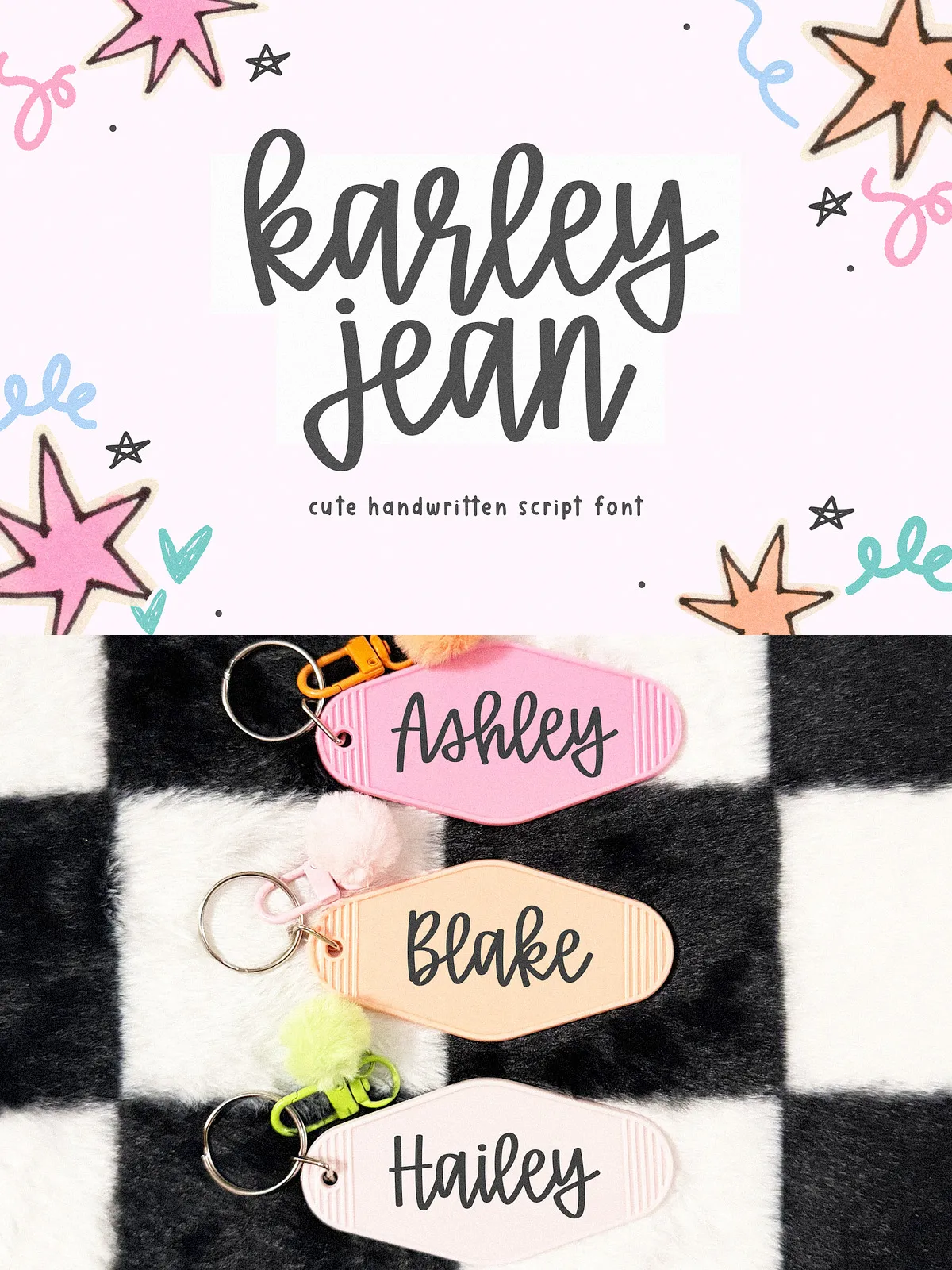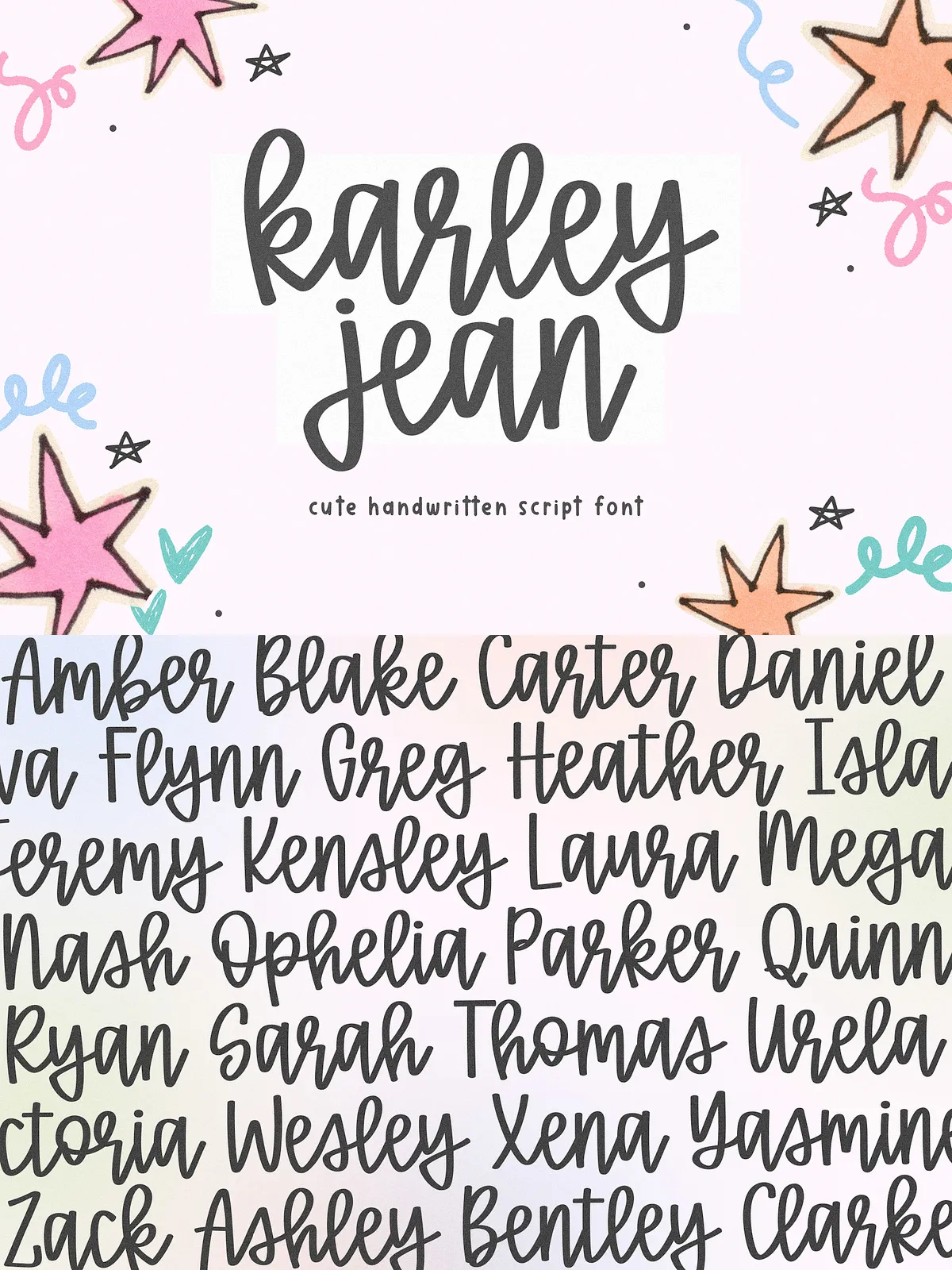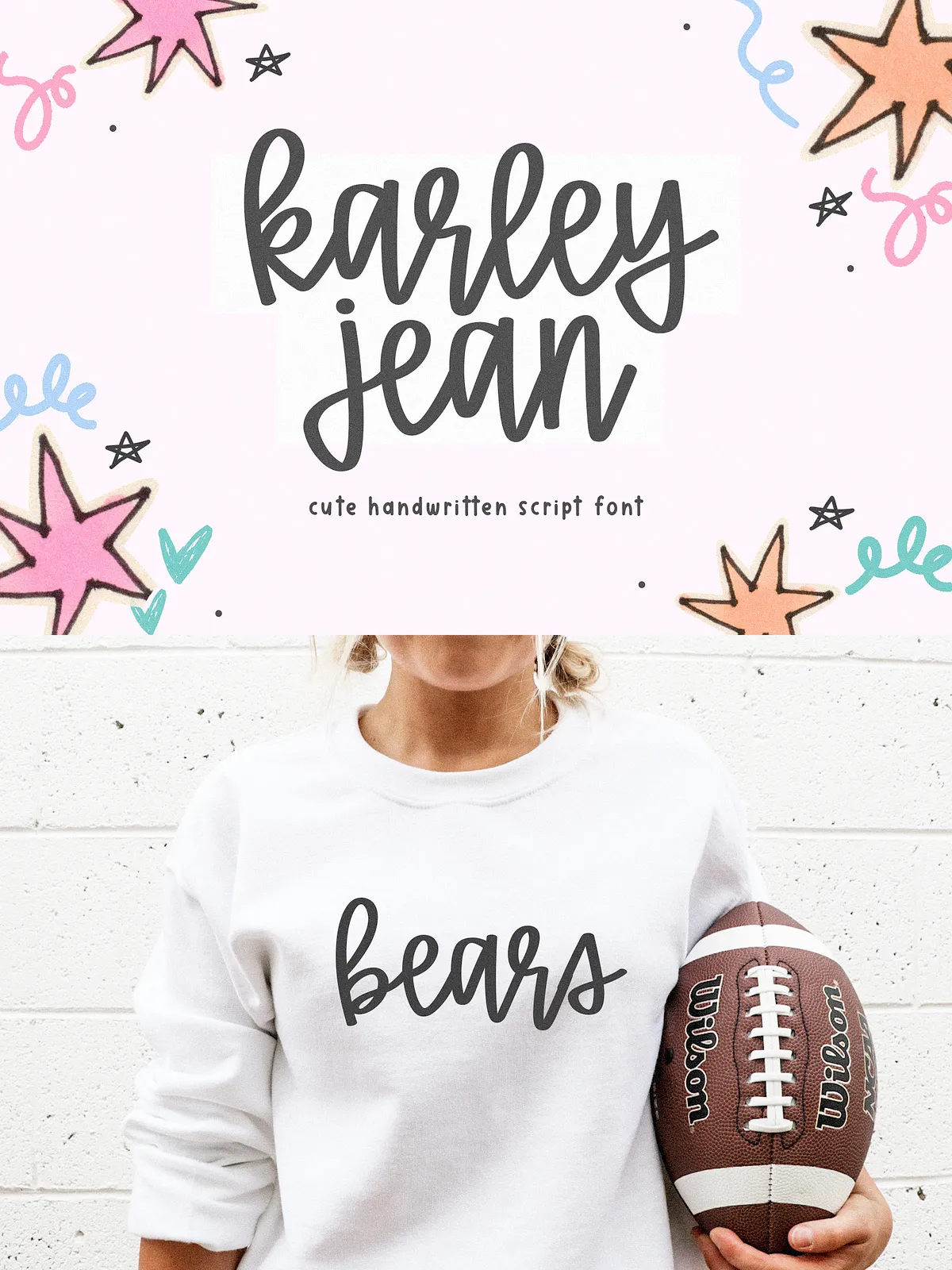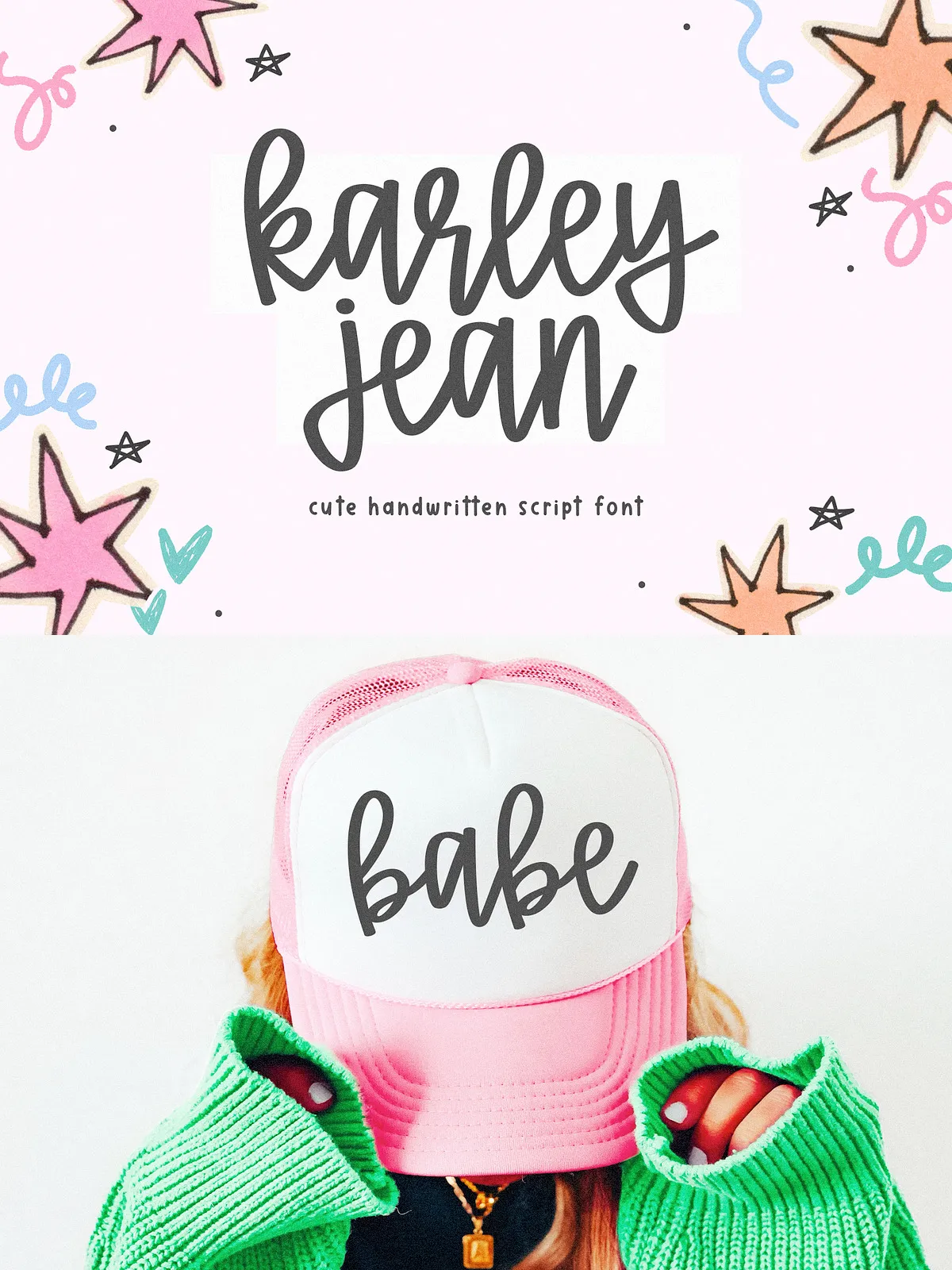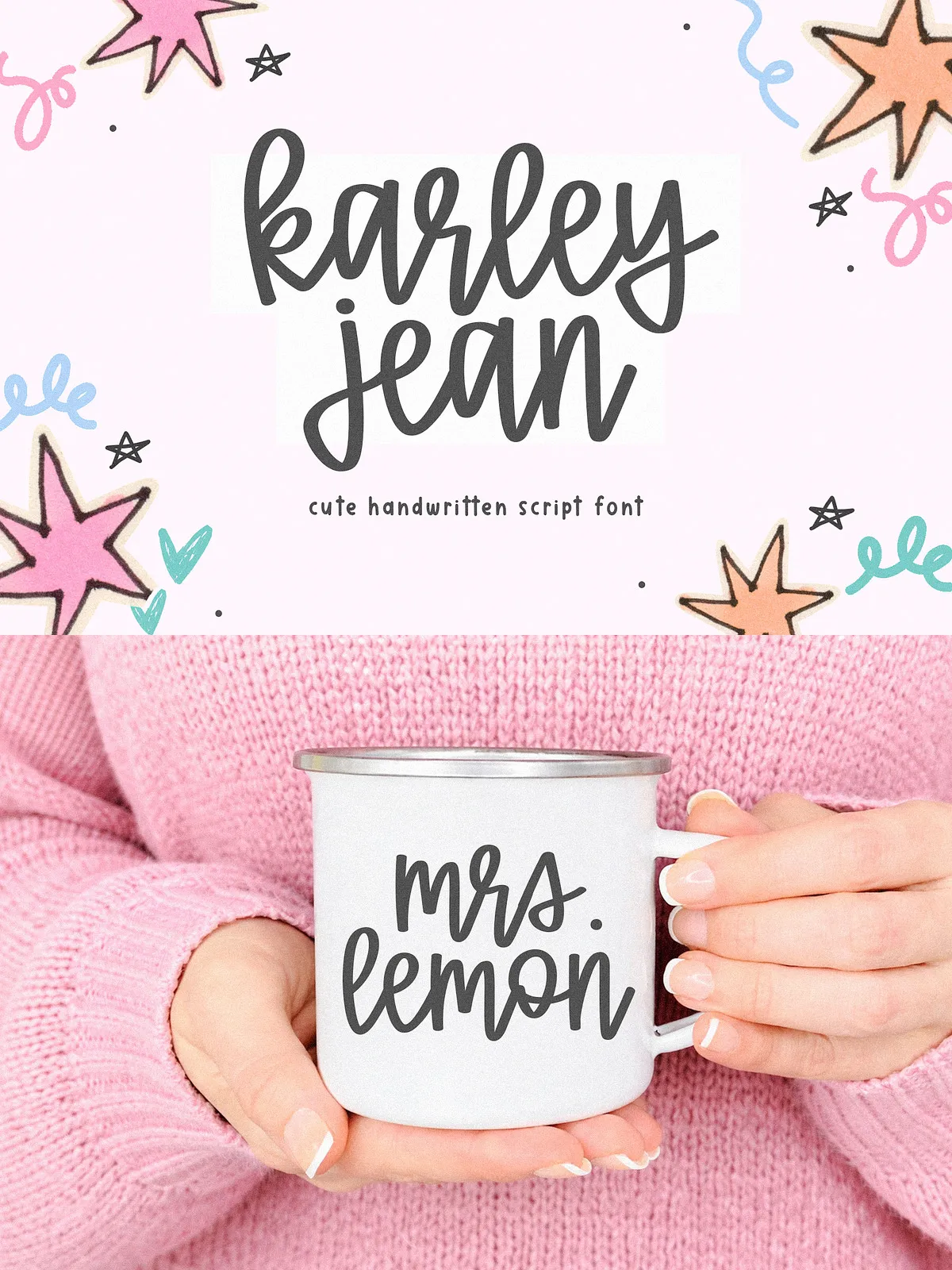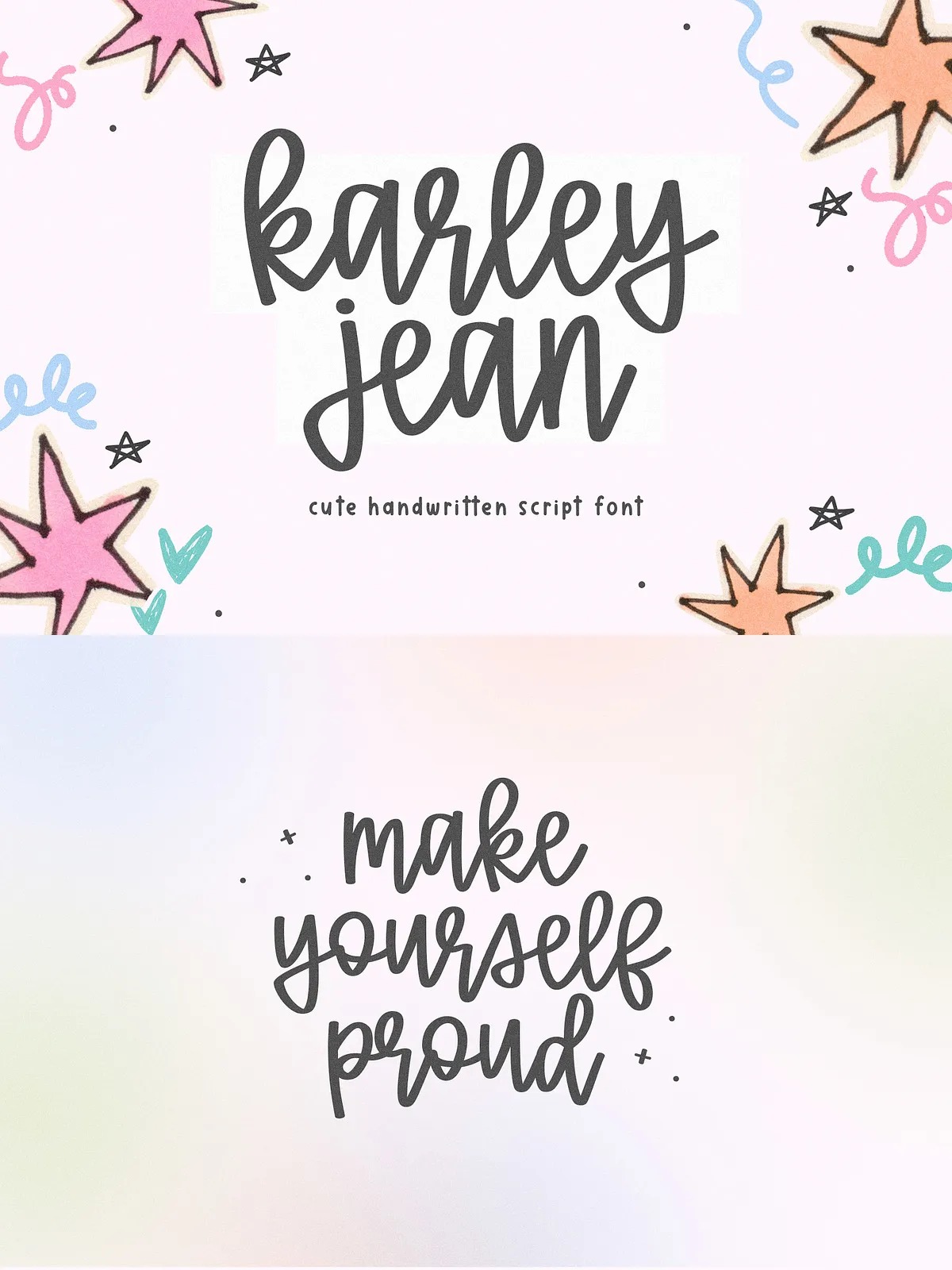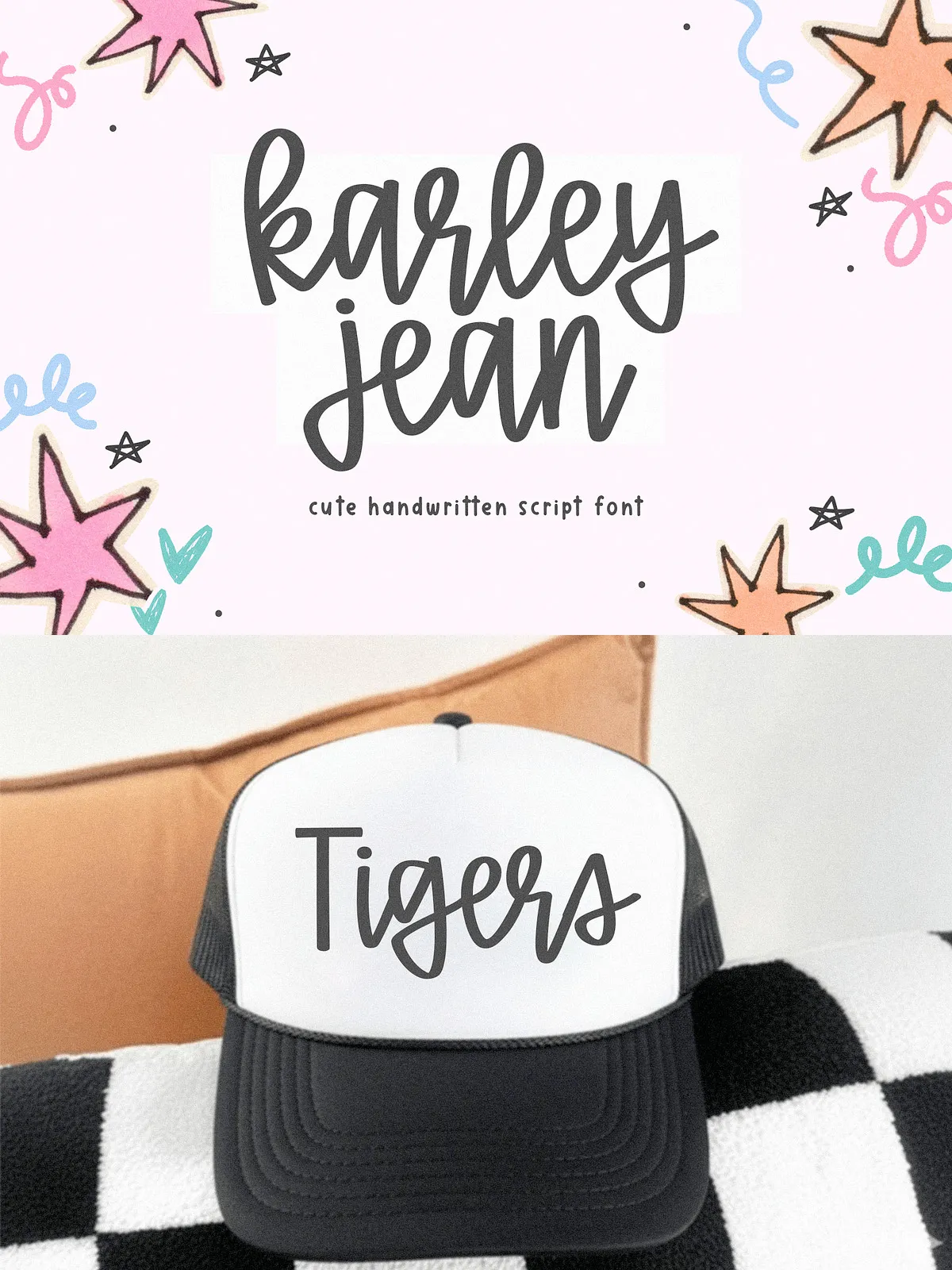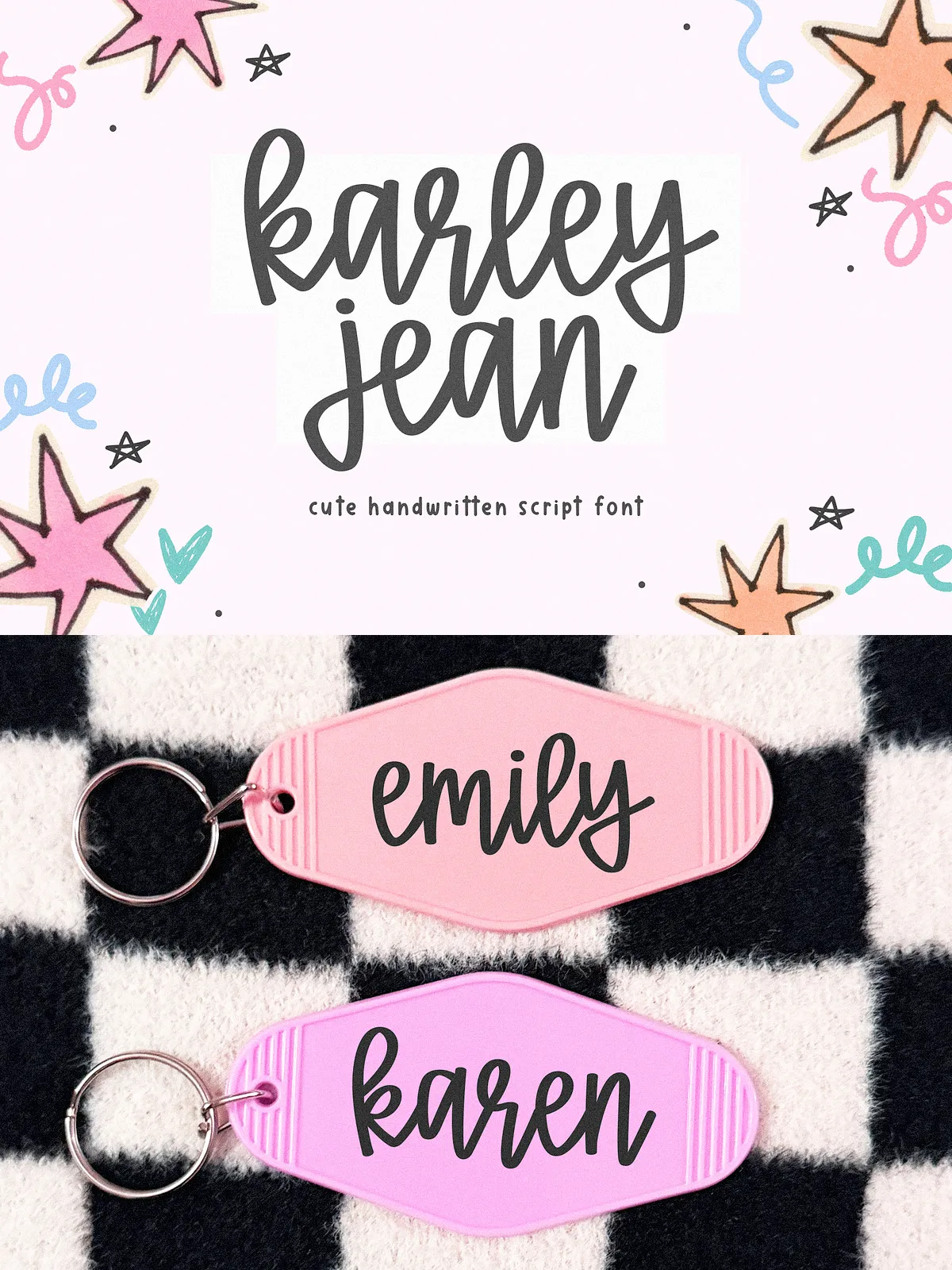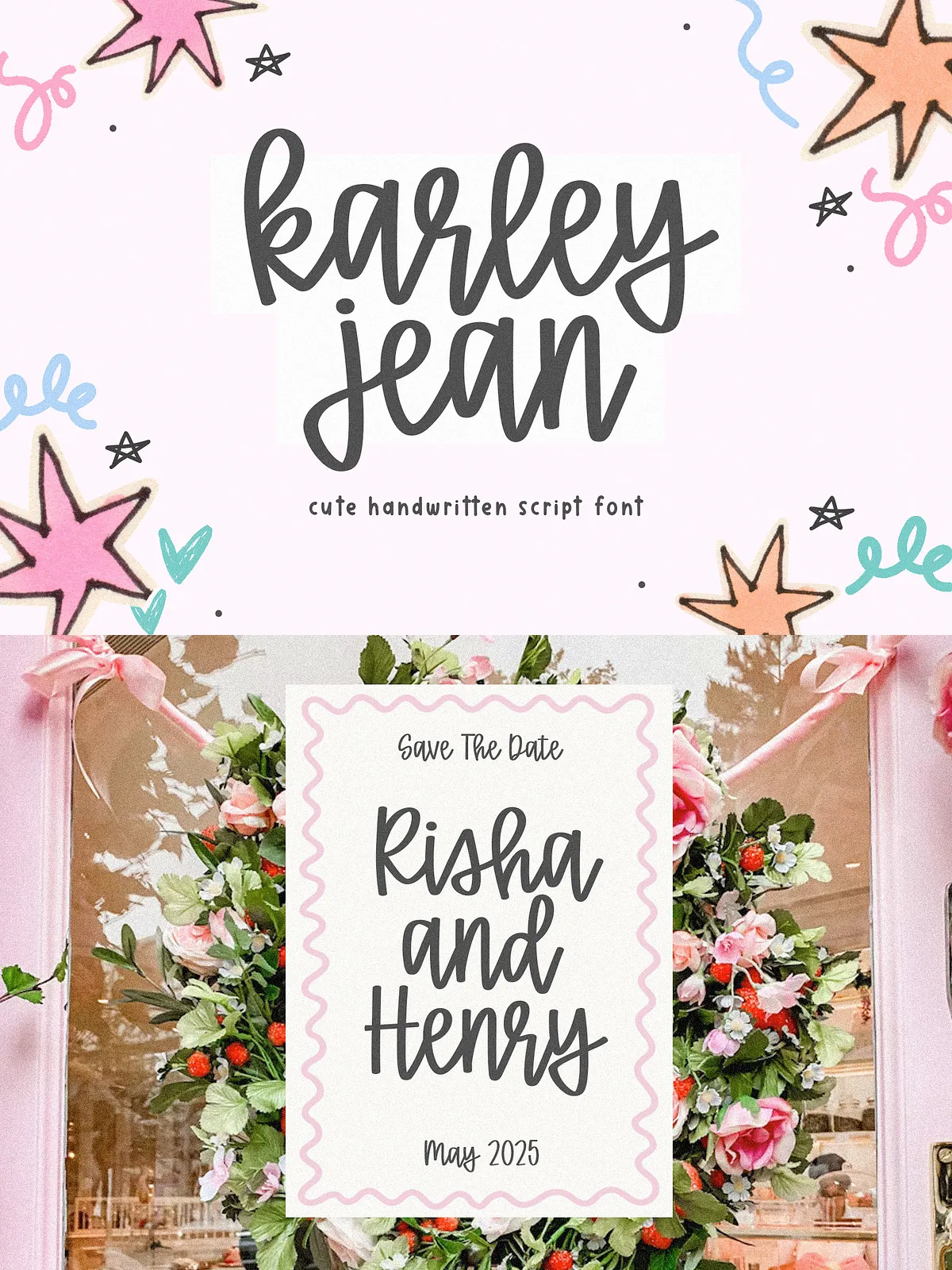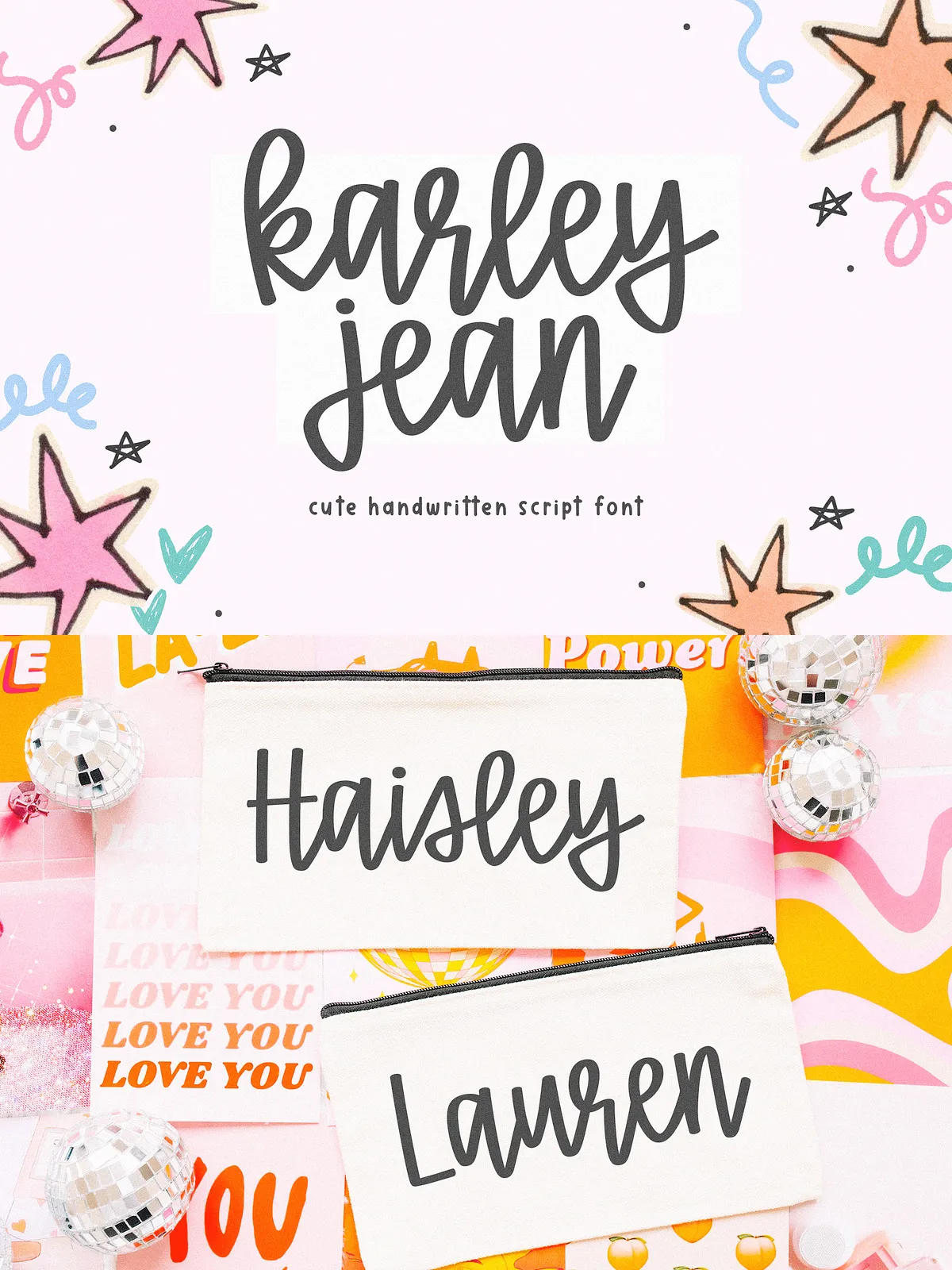
Karley Jean is a cute, hand-drawn script font crafted to add warm personality and instant charm to a wide variety of creative projects. It combines approachable letterforms with clear readability so your designs look handcrafted without sacrificing legibility. Use Karley Jean to communicate friendliness, creativity, and a personal touch across both digital and physical media.
Handmade Character
The letterforms in Karley Jean show subtle irregularities and natural stroke movement that mimic real handwriting. These organic details create an authentic, human voice that enhances packaging, stationery, and branding materials.
Readability and Versatility
Despite its handwritten style, Karley Jean remains highly readable at display sizes and in short blocks of text. The consistent baseline and open counters make it suitable for logos, headings, and short paragraphs on posters or social media graphics.
Craft-Friendly Design
Karley Jean translates well to craft workflows: it cuts cleanly for Cricut and laser cutting, prints crisply for painted banners and classroom displays, and imports easily into Canva for fast, polished layouts.
Intended Uses
Ideal Project Types
- Craft projects using Cricut, Silhouette, and other cutting machines.
- Logos and wordmarks for boutique shops, handmade brands, and lifestyle businesses.
- Painted banners, classroom signage, and printable decorations.
- Laser-cut signage and personalized wood or acrylic goods.
- Social media graphics, product mockups, and packaging labels.
Styling and Pairing Tips
How to Combine Karley Jean with Other Typefaces
Pair Karley Jean with a neutral sans serif for balance when you need longer body copy. For vintage or craft-focused designs, combine it with a subtle serif or condensed display face to create layered, tactile compositions. Use heavier weights or small caps in the companion face to anchor layouts that rely on Karley Jean’s whimsical script for personality.
Practical Styling Advice
- Adjust letter-spacing slightly when using Karley Jean at large sizes to avoid visual gaps between strokes.
- Use color contrast and solid backgrounds to preserve stroke clarity on printed banners and laser-cut materials.
- Enable ligatures and contextual alternates when available to produce more natural-looking wordforms.